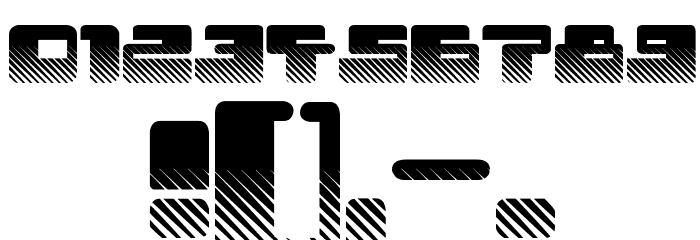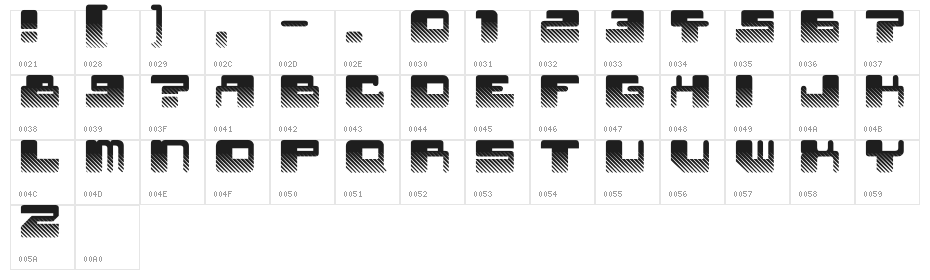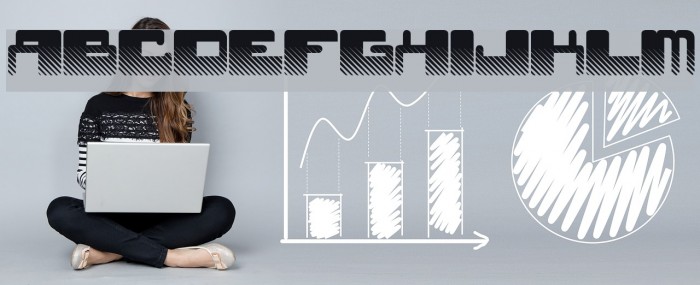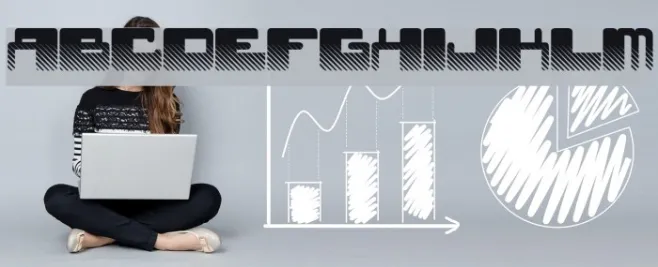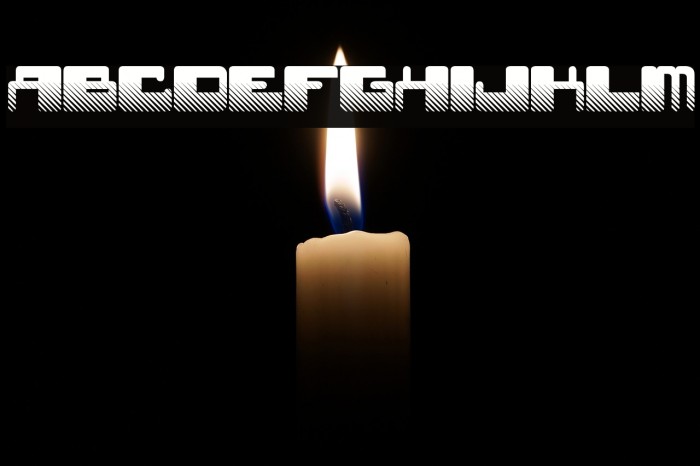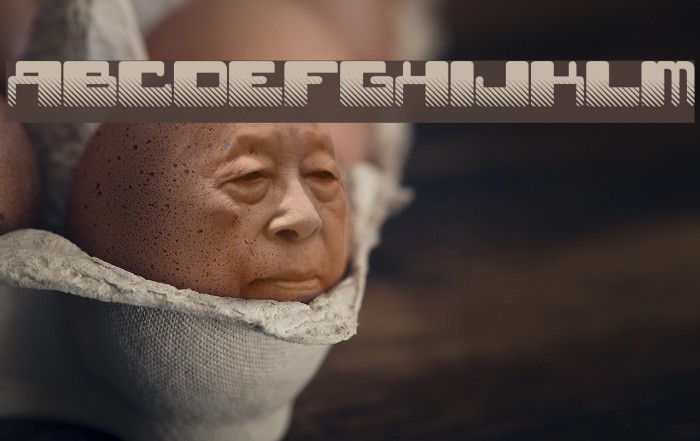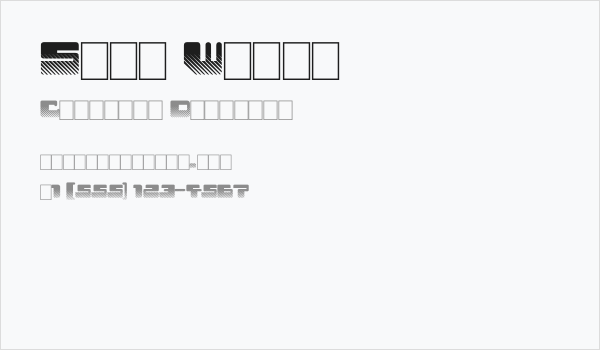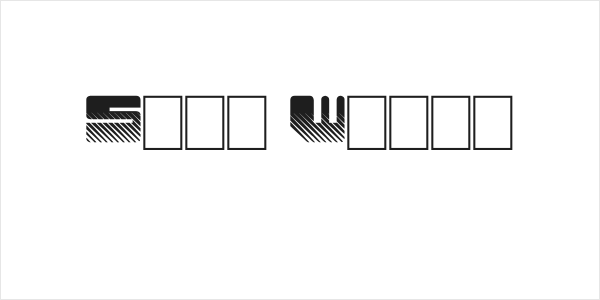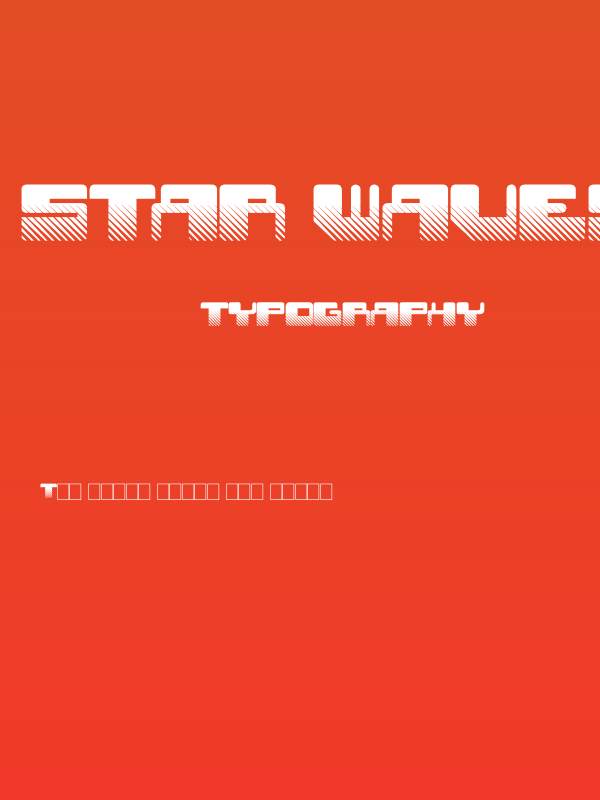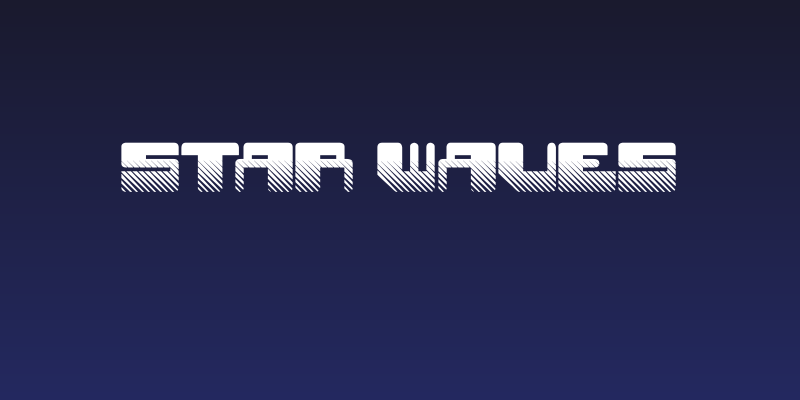
Star Waves Font
Star Waves Description
This font features a bold, futuristic design with a unique striped pattern running diagonally across each character. The uppercase and lowercase letters maintain a consistent style, with sharp edges and geometric shapes that convey a sense of modernity and innovation. The numbers and special characters follow the same design principles, ensuring a cohesive look across all elements. The font's distinct appearance makes it ideal for projects that require a standout, eye-catching typeface.
| Proposed Projects | Ideal for sci-fi themed designs, technology branding, video game titles, and modern posters. |